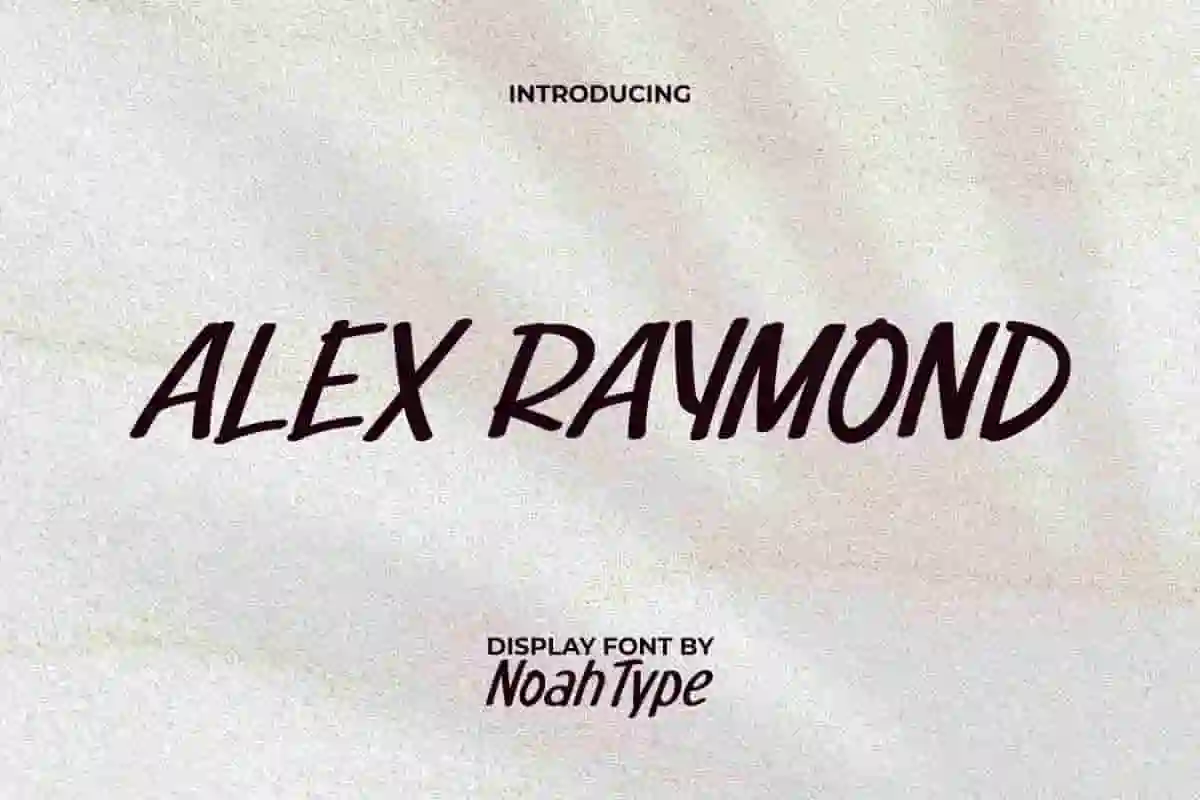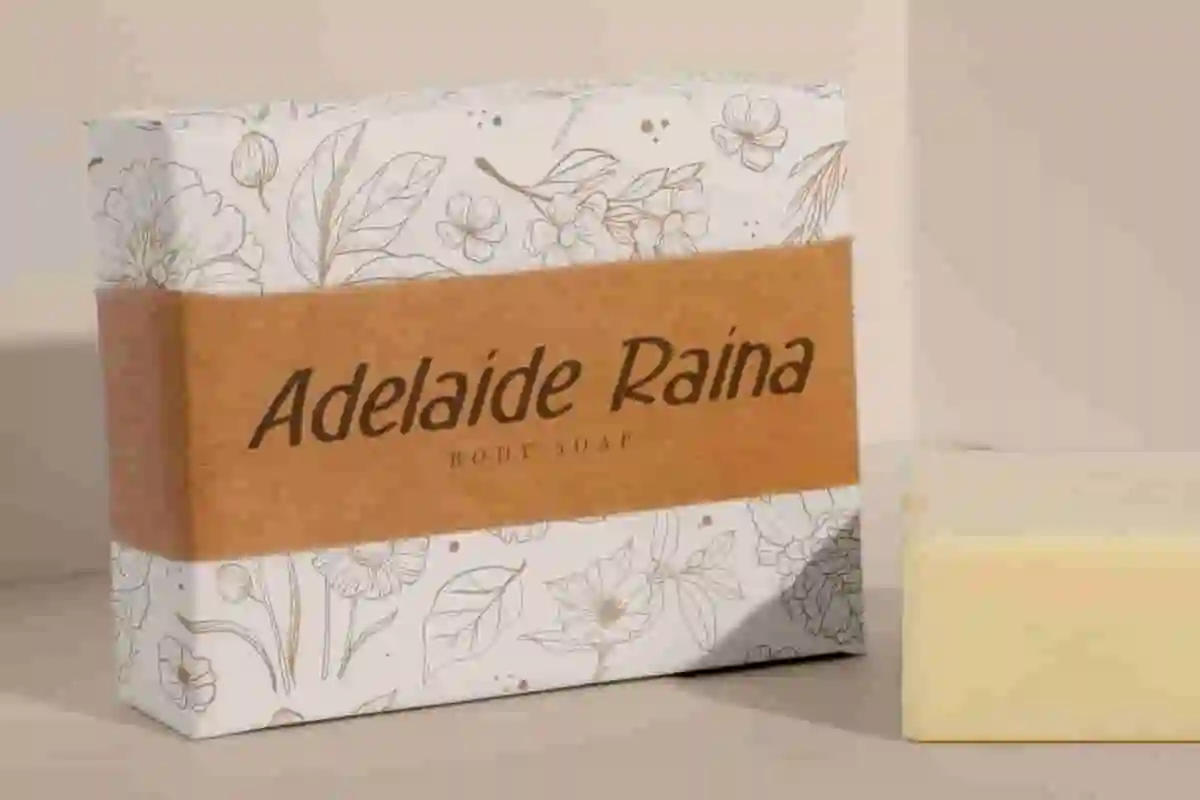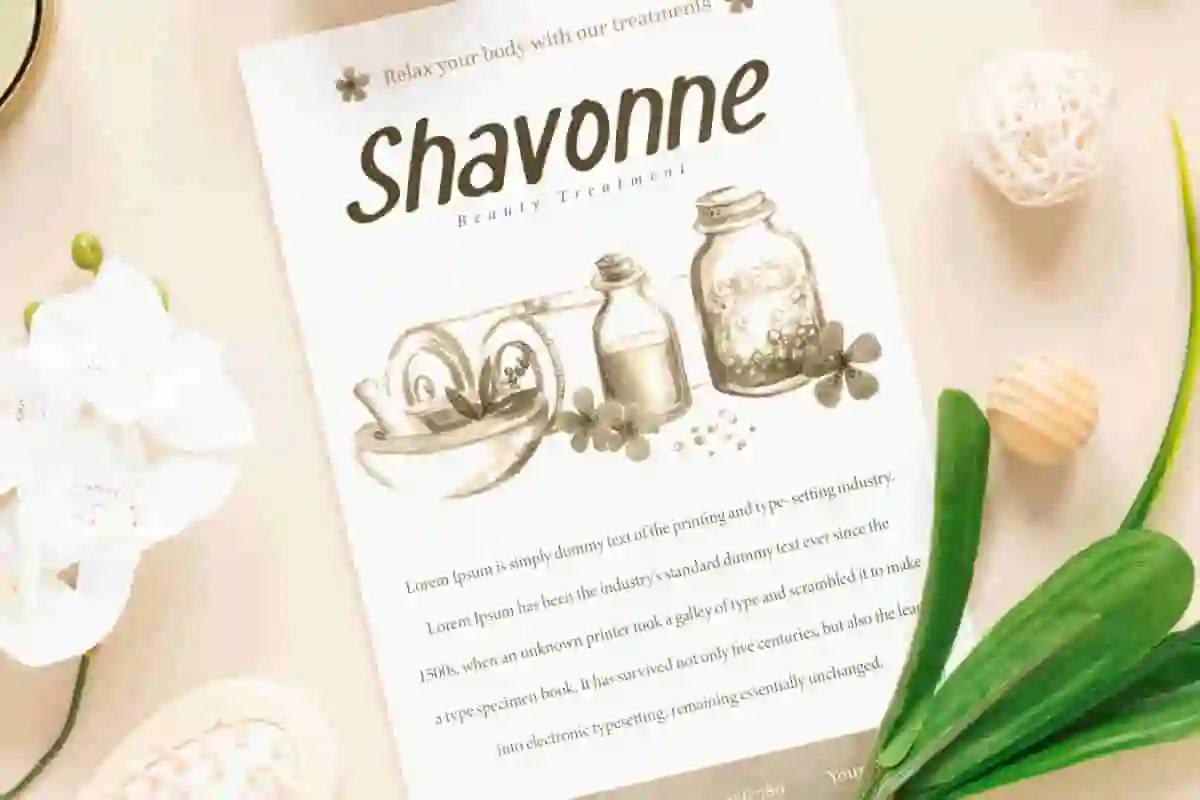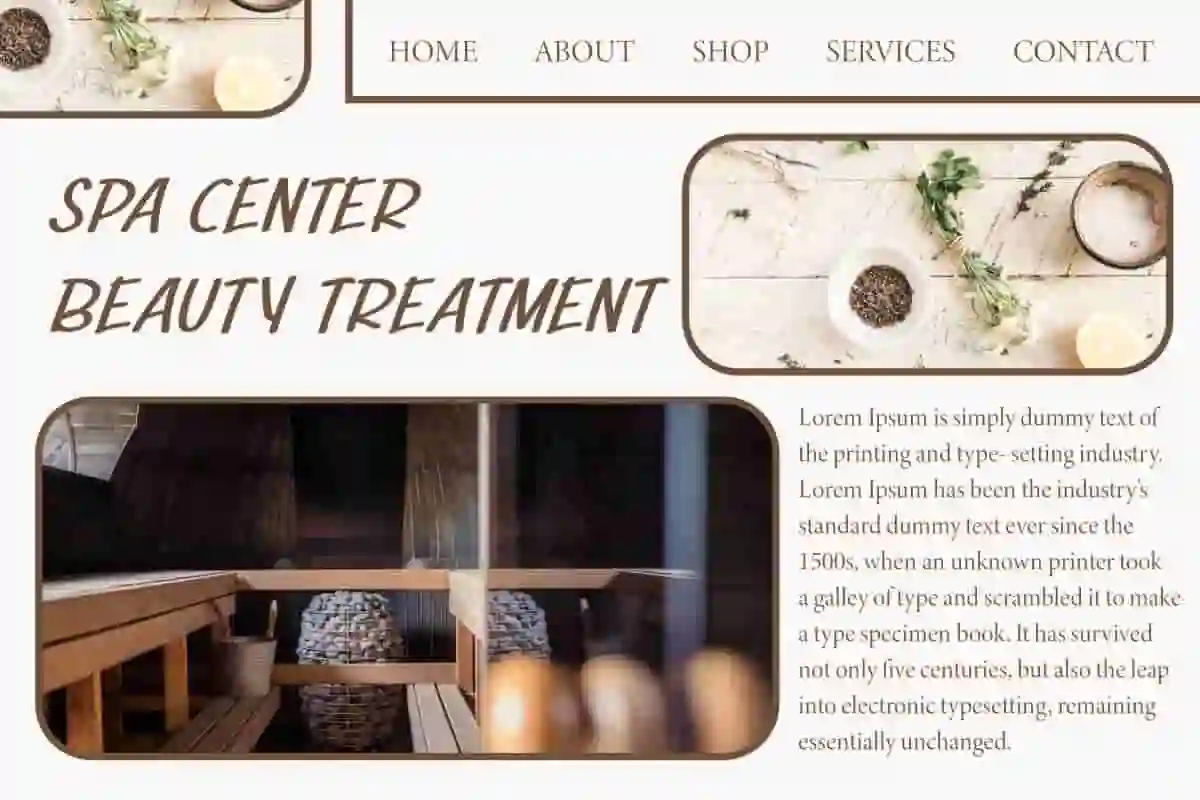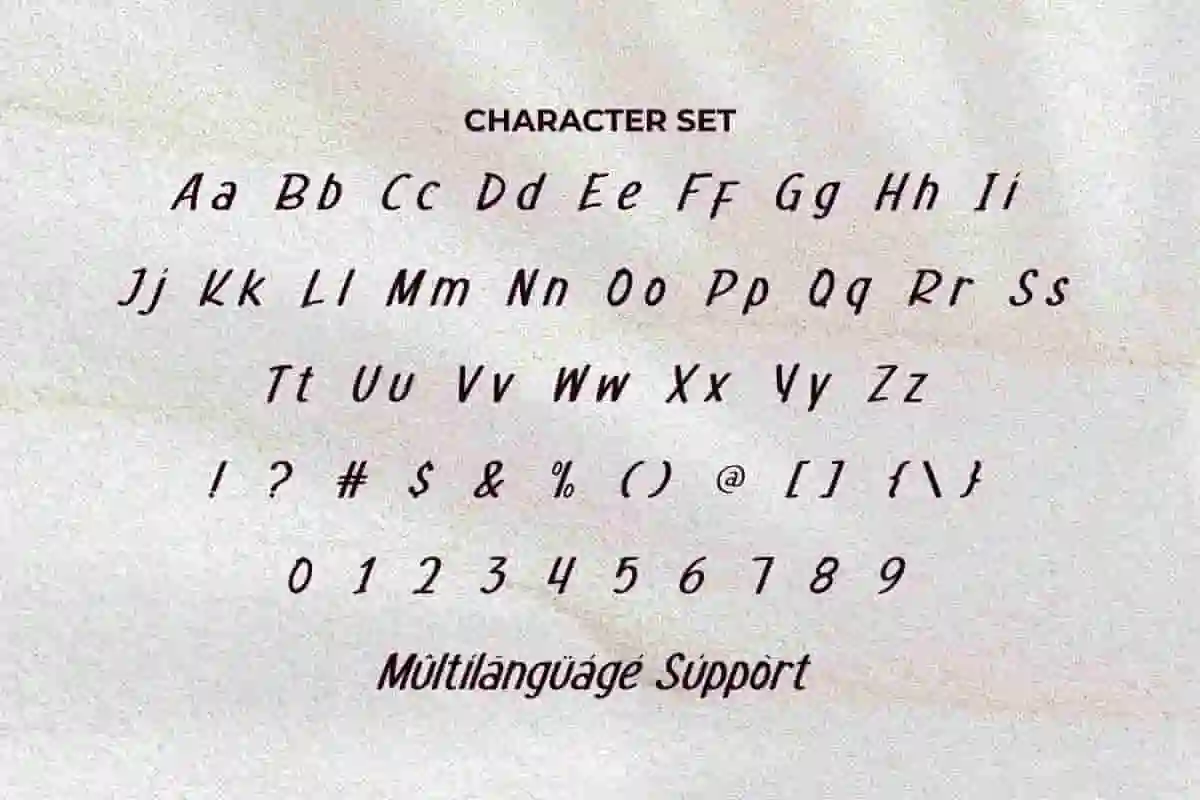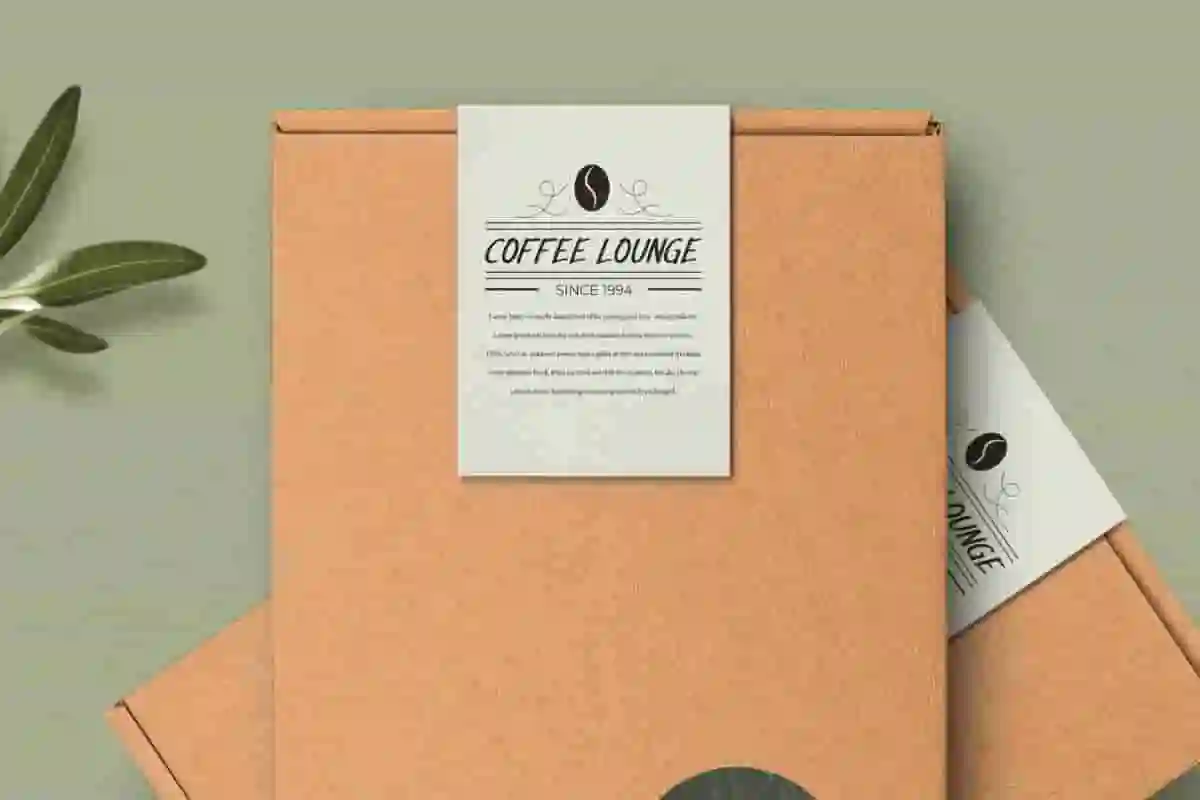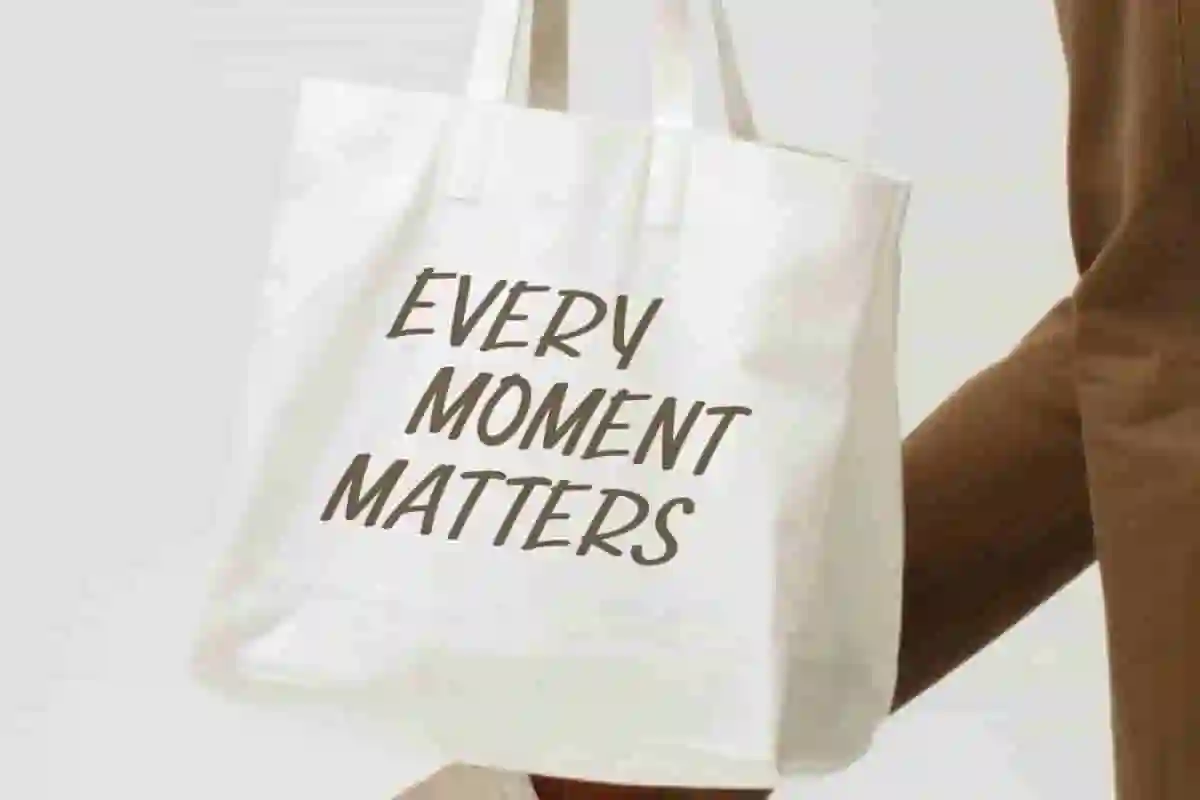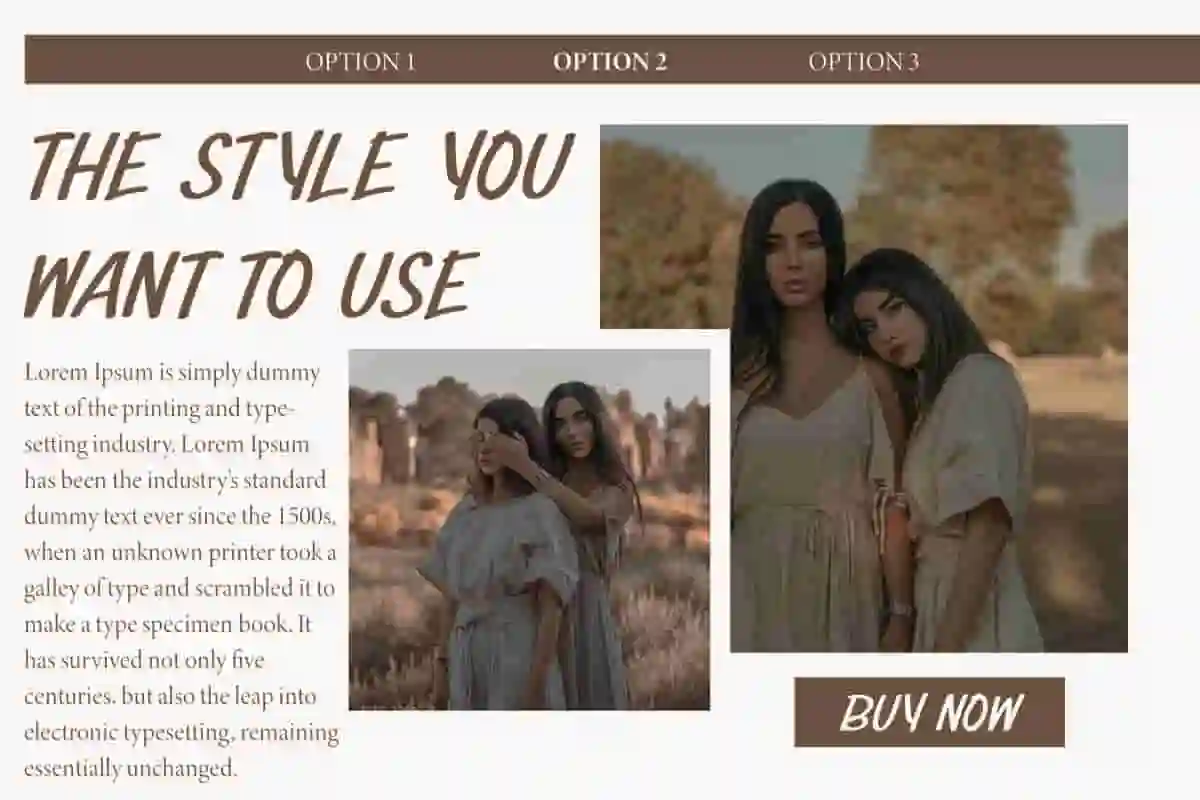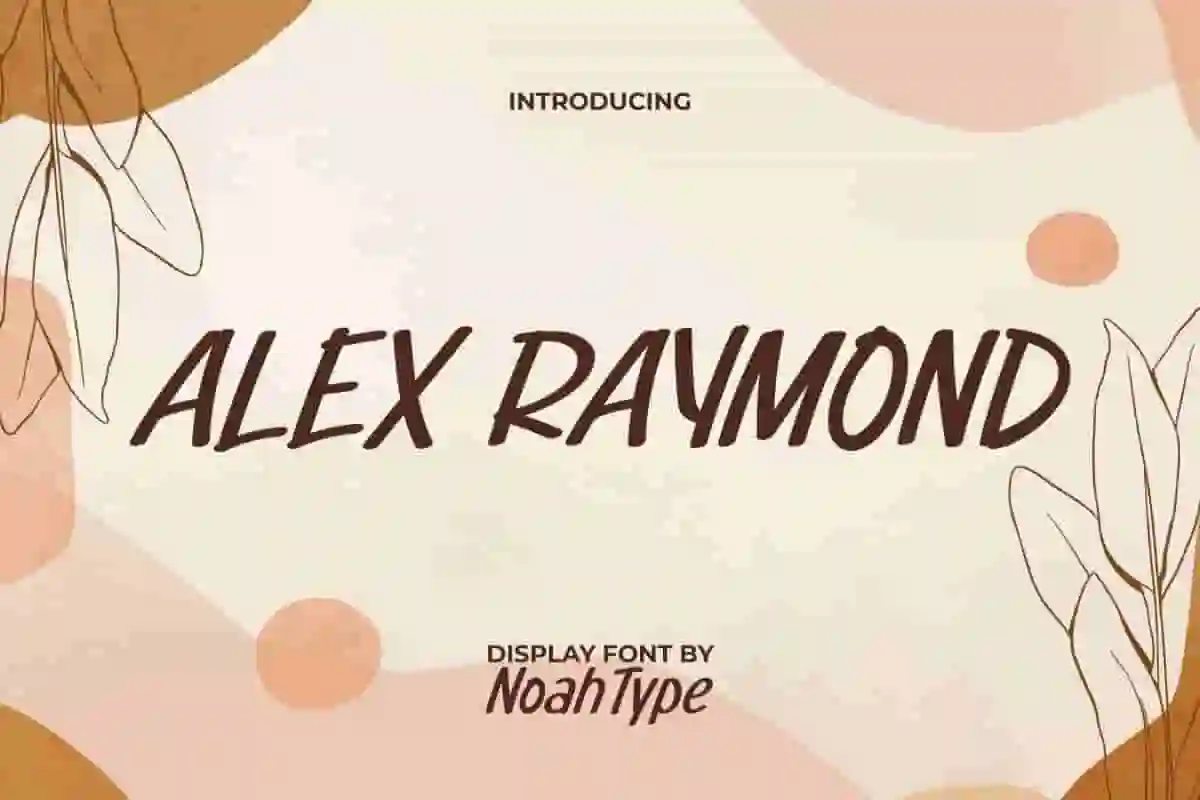
Alex Raymond Font is a modern stylish display font with handwriting style. This font has lines that are not too thick and large, but can give a bold impression because of its clean style. You can use this font for any designs, such as brand image, catalog, custom design, invitation, label, poster, product packaging, quotes, stationery, website page, and more!
Alex Raymond Font includes full set of Uppercase and Lowercase Basic Characters, Numerals, Punctuation, and Symbol. This font will be a perfect choice for many industries, such as accessories, advertising, bakery and pastry, beauty product, event or festival, fashion, printing, publishing, etc.